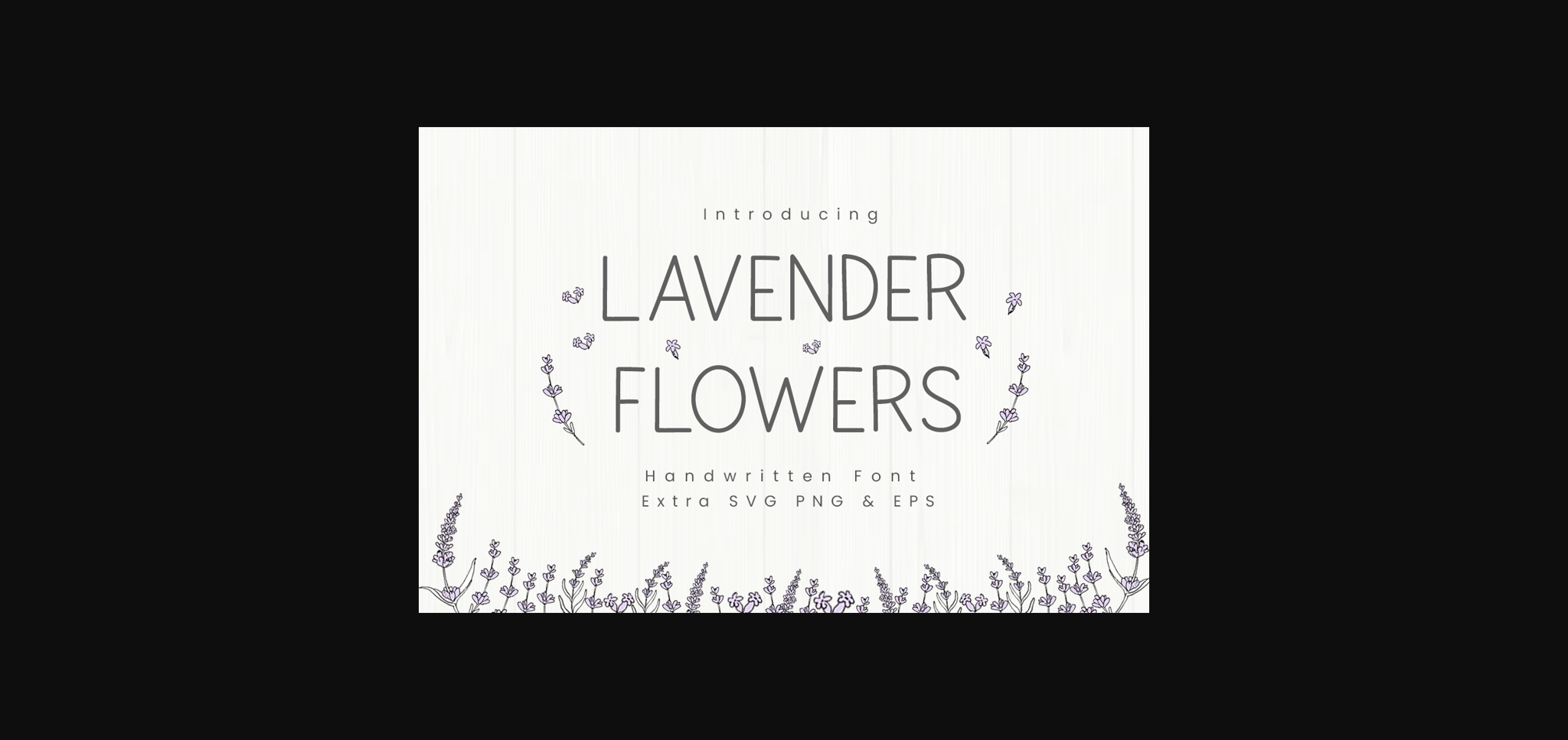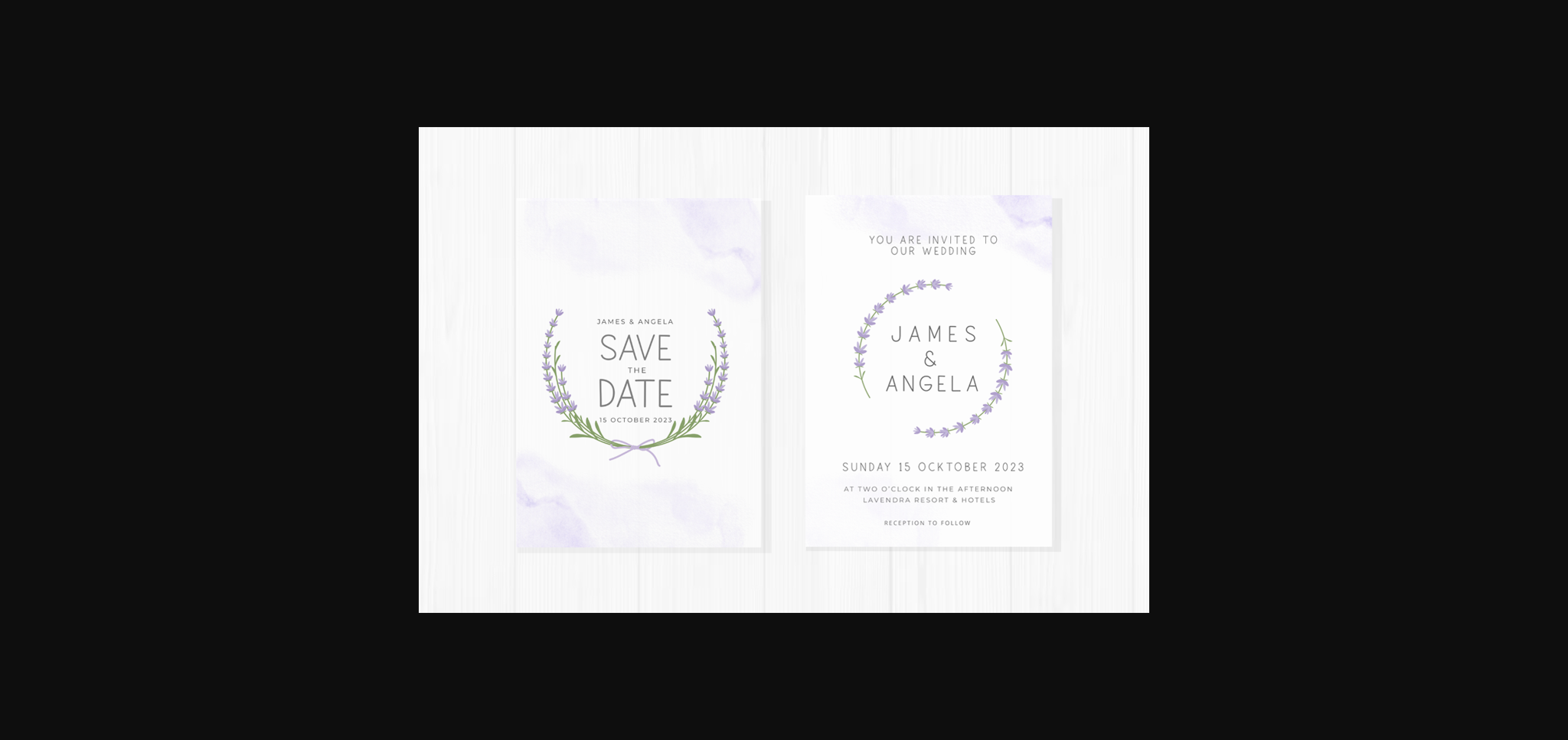
About Lavender Flowers Font
Lavender Flowers is a minimalist handwritten sans serif font. This font can be easily adapted to a range of business card designs, logos, signs, crafts, Invitation wedding, t-shirts, and many others. The addition of vector lavender flowers will make the design stand out more. Add this lavender flowers font to your creative design